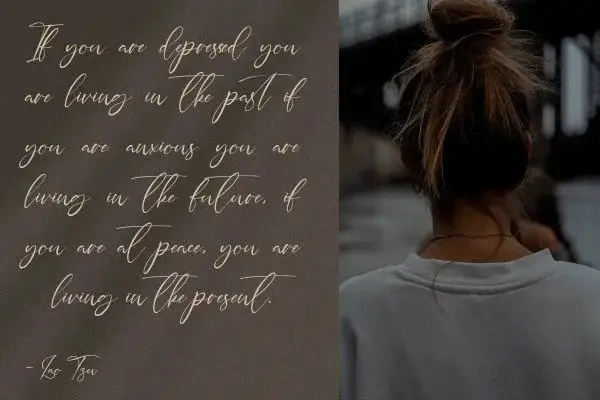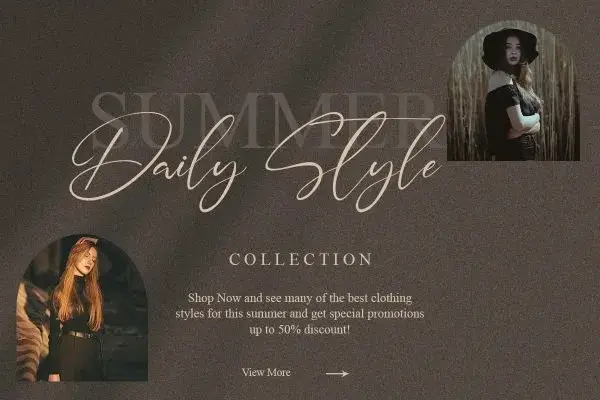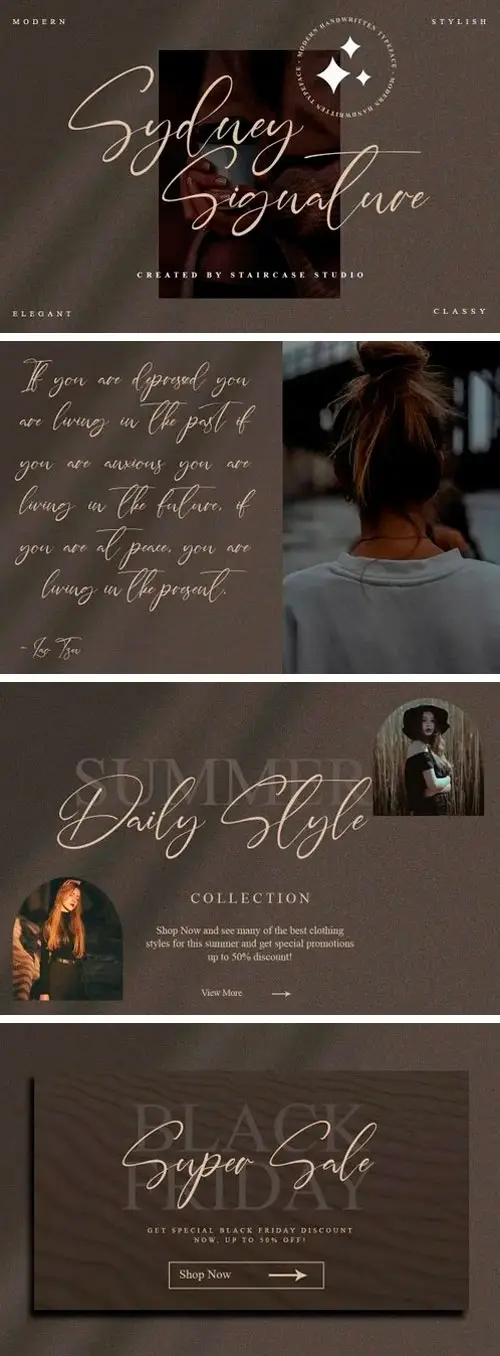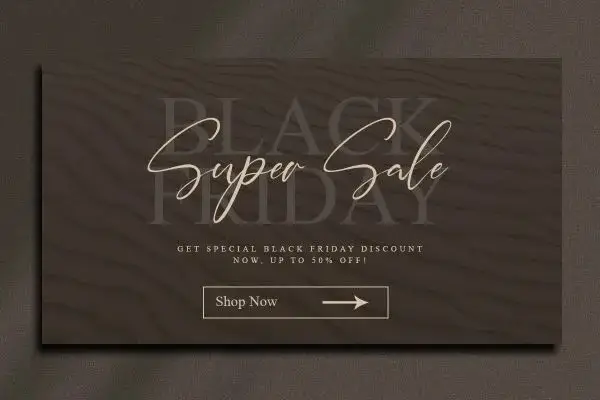
Sydney Signature Script Font
The Sydney Signature Script Font is a beautifully crafted typeface that embodies elegance and sophistication. With its flowing, cursive style, this font is perfect for a variety of applications, including branding, invitations, logos, and more. The script features a range of weights, allowing for versatility in design projects.
• Stylish script design
• Multiple weights for flexibility
• Style: Script
• Weight: Regular, Bold
• Ideal for wedding invitations and personal branding
• Use in logos for a sophisticated touch
• Perfect for social media graphics and marketing materials